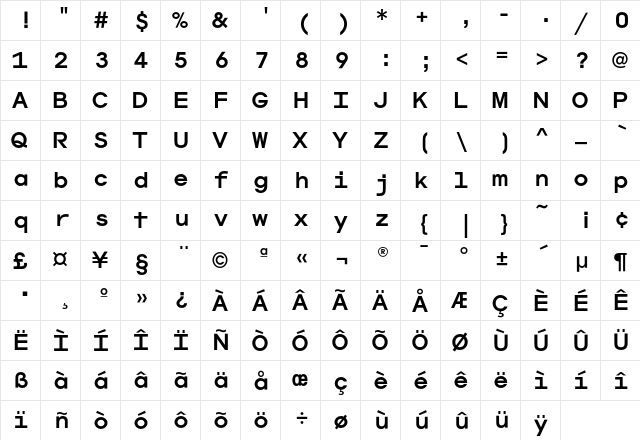
AvantGardeMonoEF Bold Font Preview
Design Context for AvantGardeMonoEF Typeface
AvantGardeMonoEF uses fixed-width spacing throughout, giving it the structured, systematic character associated with coding environments and technical documentation. The heavy weight commands attention and anchors typographic hierarchies.
Pro Tip: Use AvantGardeMonoEF with slightly increased line-height for extended reading — fixed-width spacing can feel dense in longer passages without extra breathing room.